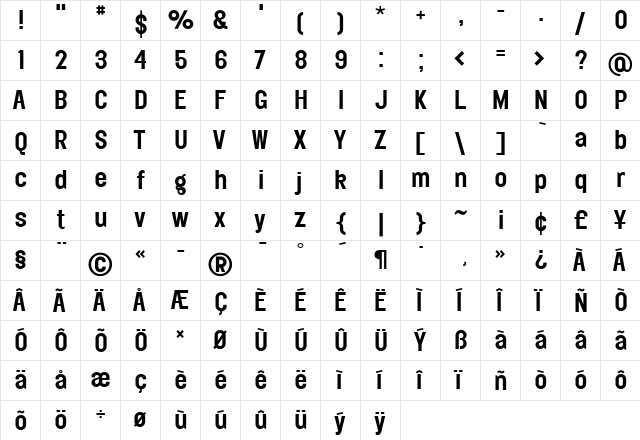
Elephant Medium
| Foundry | Gareth Hague |
Design Context for Elephant Typeface
Elephant is a composed and adaptable typeface that performs quietly and consistently across a wide range of design contexts.